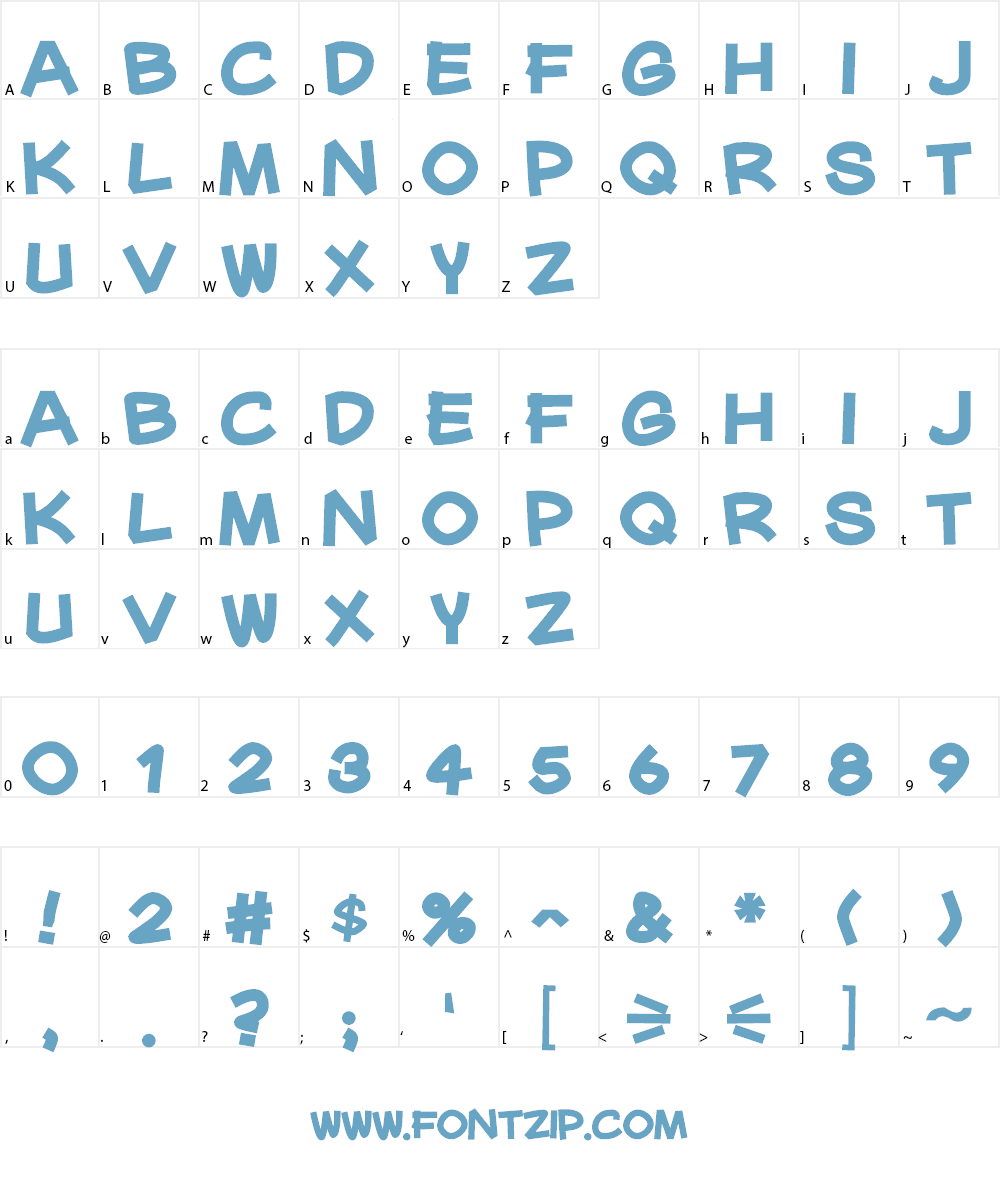
Another comics-like font. This were digitally generated, with mouse, that's not my handprint. This font has squared tips automatically generated by the software on which I created the shapes (Inkscape).
Unlike most comics-like fonts, this family has a large character set, it includes Latin diacrytics from Latin-1 Supplement and Latin Extended-A Unicode blocks, Greek and Cyrillic. I don't know if I made some mistakes at Greek, because I never saw greek comics to know how they are and how they handle uppercase text (OK, I saw the cover of Brazilian "Mônica" in Greek sometime, it's written Μόνικα, but it's all I know...) And Cyrillic writes the language of my ancestors. I don't know if there is any Comics-like font with Cyrillic characters, but, I did this.
People that talk any of these languages: if there's some mistake on the characters, don't hesitate to write in the comments!
About Cyrilic italics: the forms only change in some lowercase letters, so the italic will be exactly as you already know, it will made to allow the use on some applications that doesn't italicize the letters if there's no italic version of them.
NEWER: Added missing characters in the Latin Extended-B block at Mauryssel Bold.